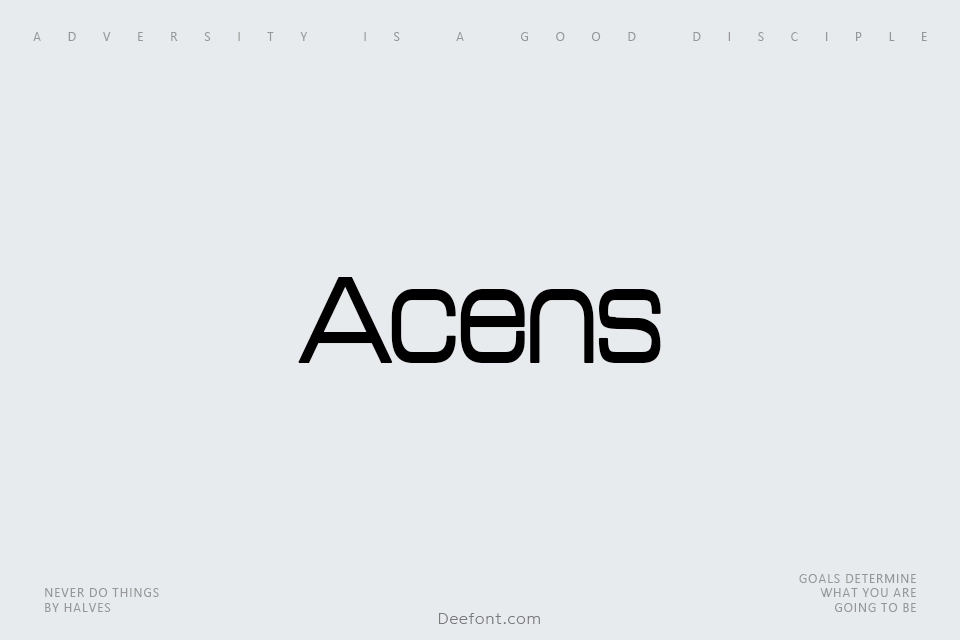
Acens Font
Acens is a bold and expanded sans-serif typeface designed with striking visual presence and clean lines. Created with generous letter spacing and geometric shapes, it delivers a modern, impactful aesthetic perfect for headlines, branding, and high-visibility applications. The font’s expanded width and distinct character provide excellent legibility across various media formats, making it an ideal choice for editorial content and corporate identities that demand attention-grabbing versatility and strength.